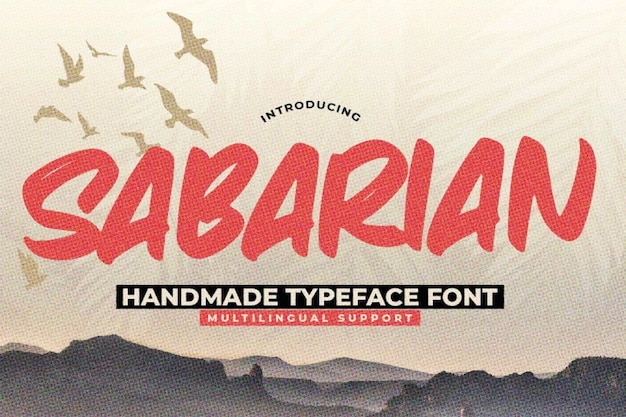
Are you looking for a great handmade typeface? Maybe the Sabarian font is that one! Its strokes and brush details are suitable for flyers, advertisements, and PowerPoint. This all-caps typeface supports multilingual accents. Download it now!
Sabarian (400)